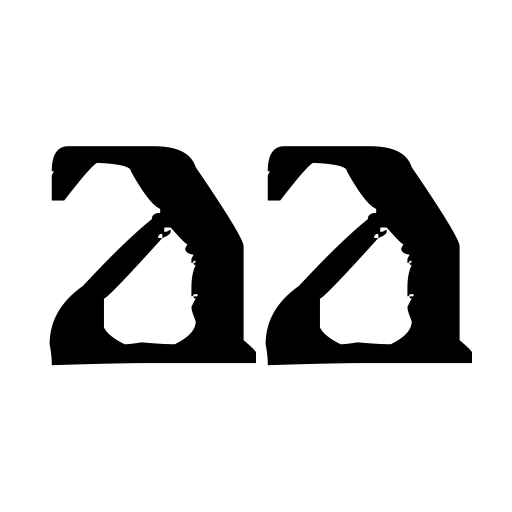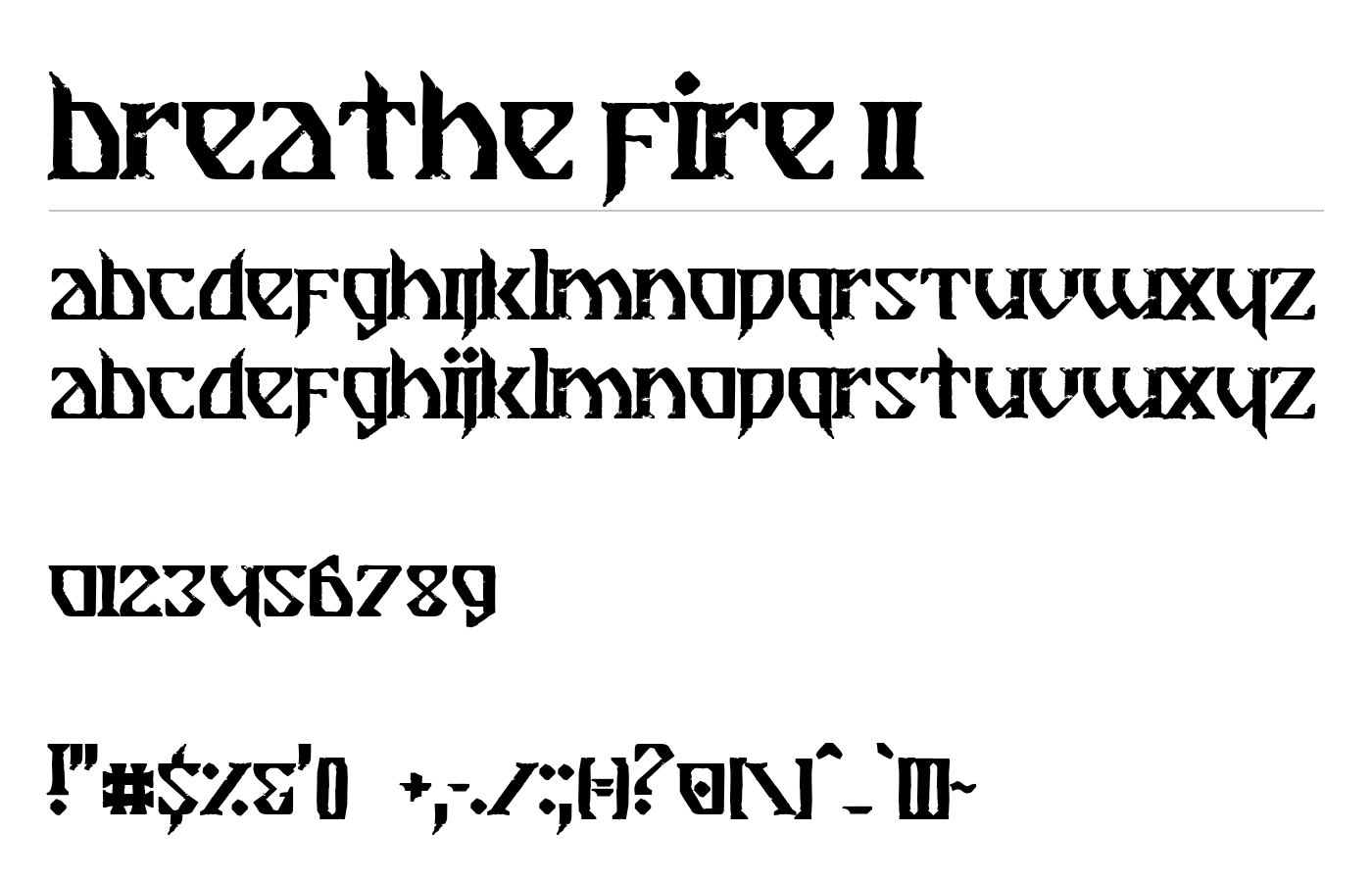
Breathe Fire II is a bold, condensed serif font with sharp, jagged edges that evoke a gothic or medieval style. Its high-contrast strokes and broken, distressed texture give it a dramatic and rebellious personality, making it ideal for striking headlines, edgy logos, or branding that seeks a dark, intense vibe. This font works best in display settings where its unique style can stand out and create a strong visual impact.
Breathe Fire II Font